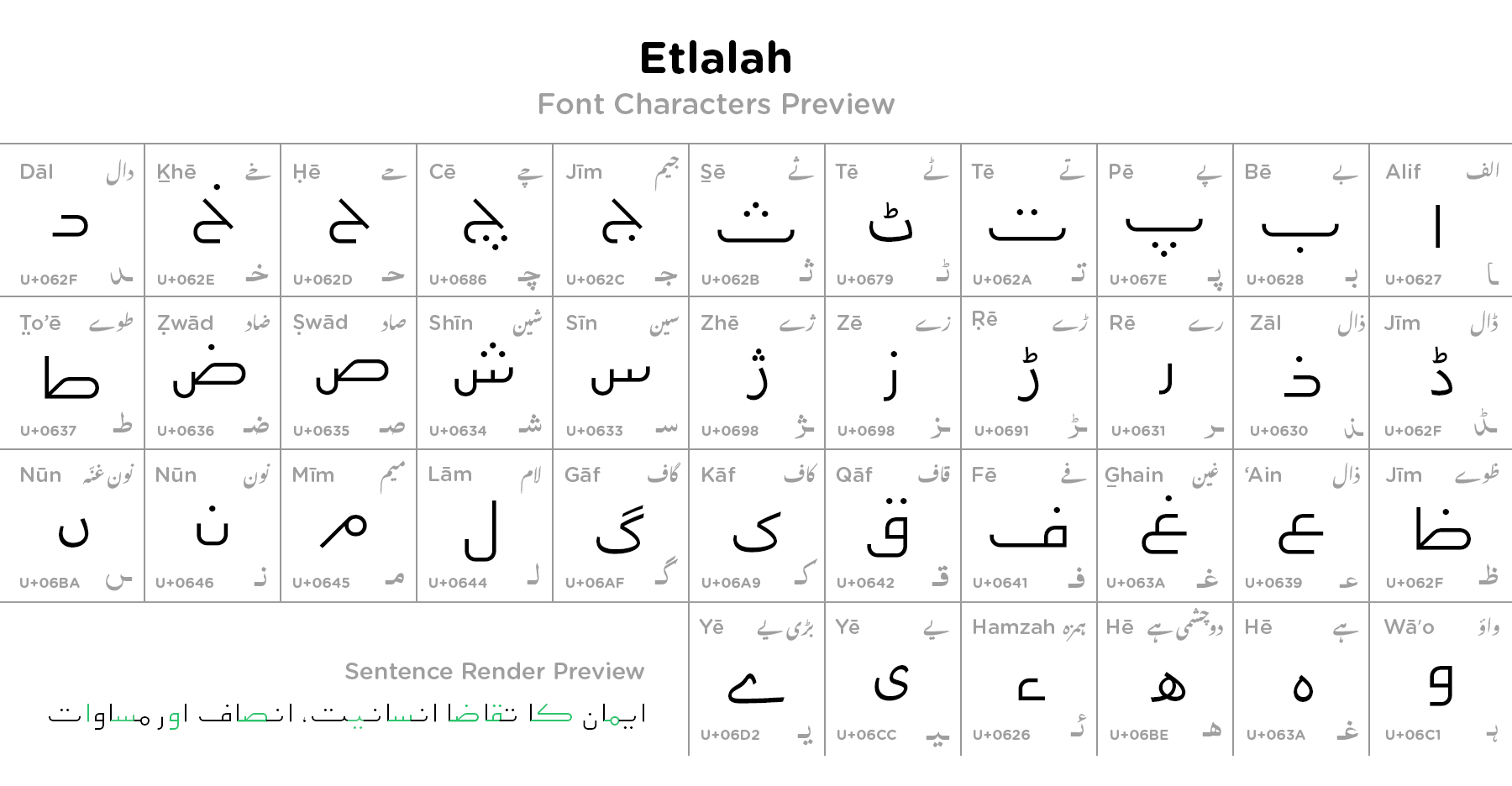
Etlalah is an Arabic font designed by Mostafa El Abasiry. It blends modern simplicity with the authenticity of the traditional Arabic script. The letterform of this font displays a very unique outlook with its wide, geometric, well-spaced formations with sharp angles and elongated terminals. Compliant with several languages, including Arabic, Latin, Urdu, and more, this font contains 273 characters and signs with a generous glyph count of 304. Moreover, it comes in 2 different styles, including: